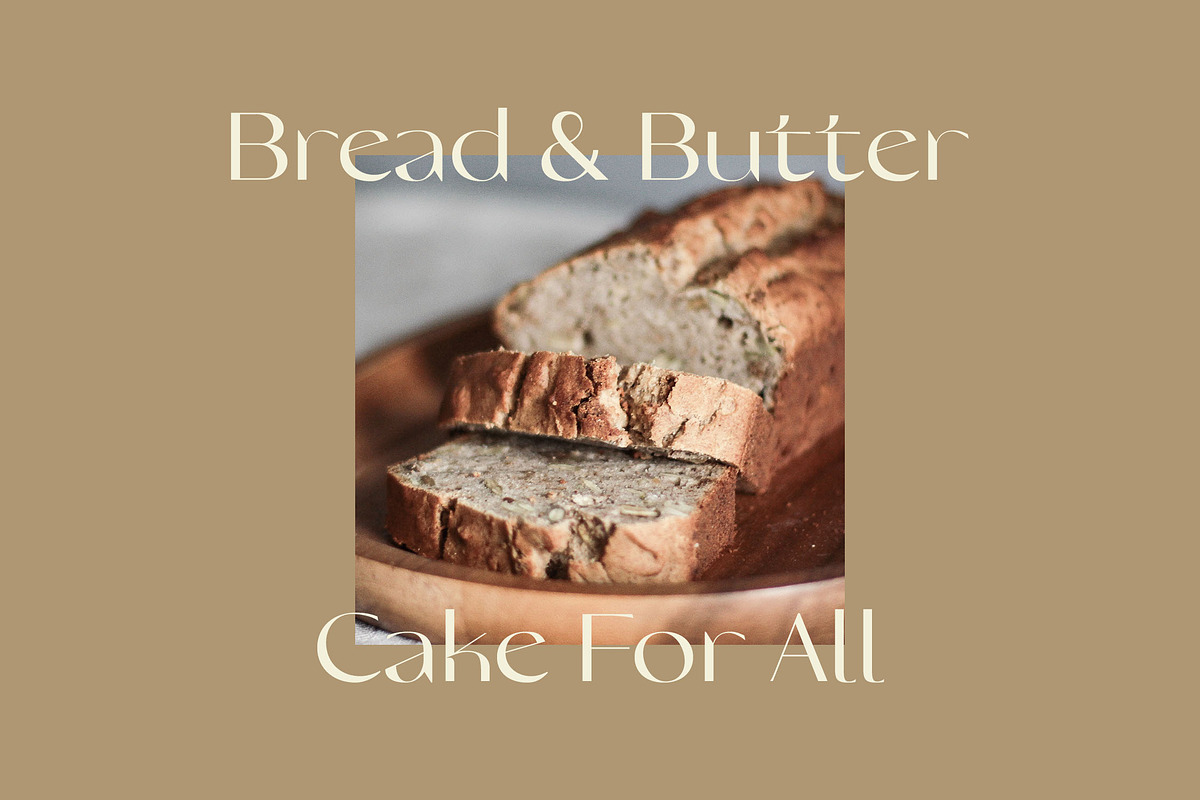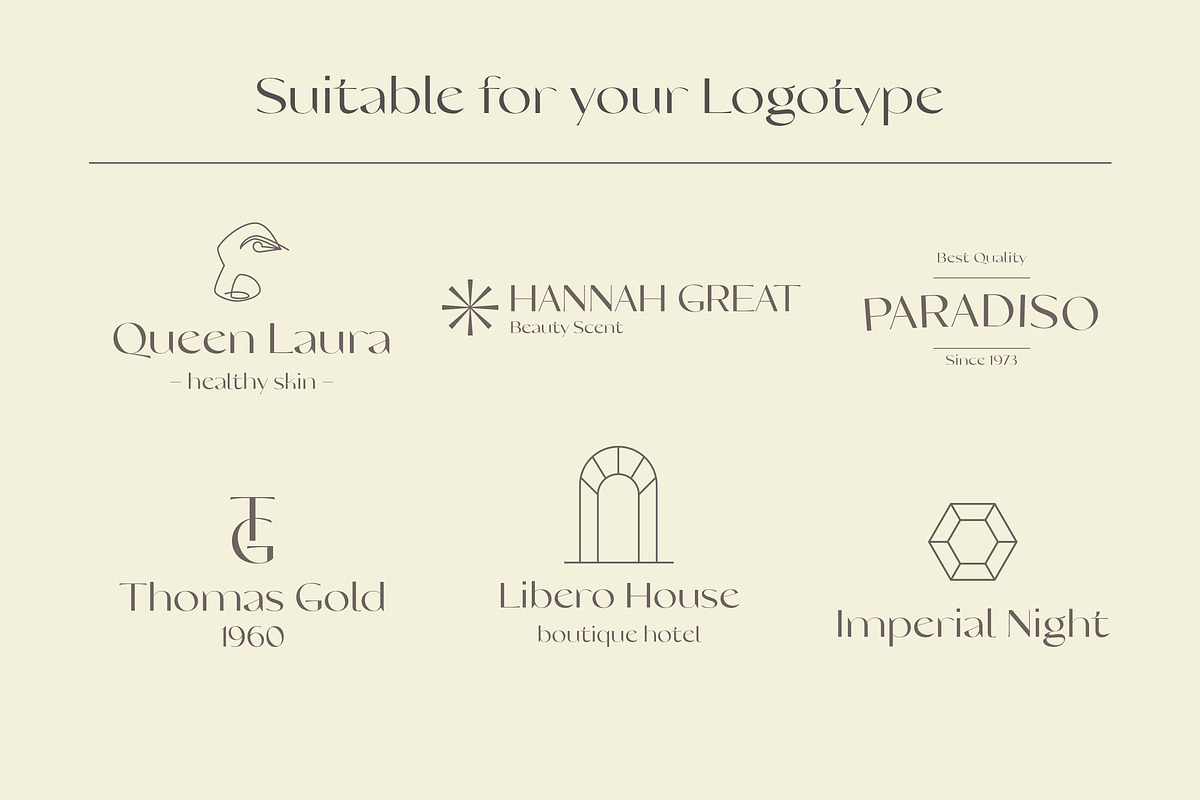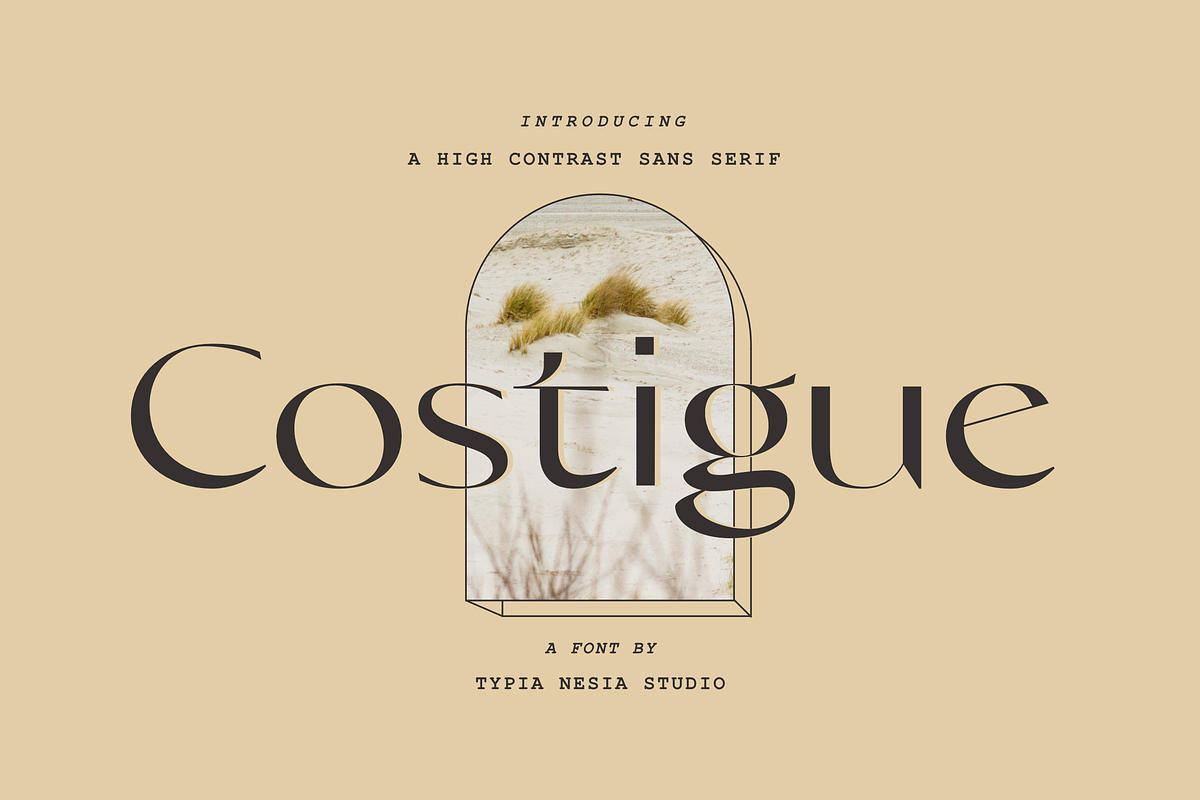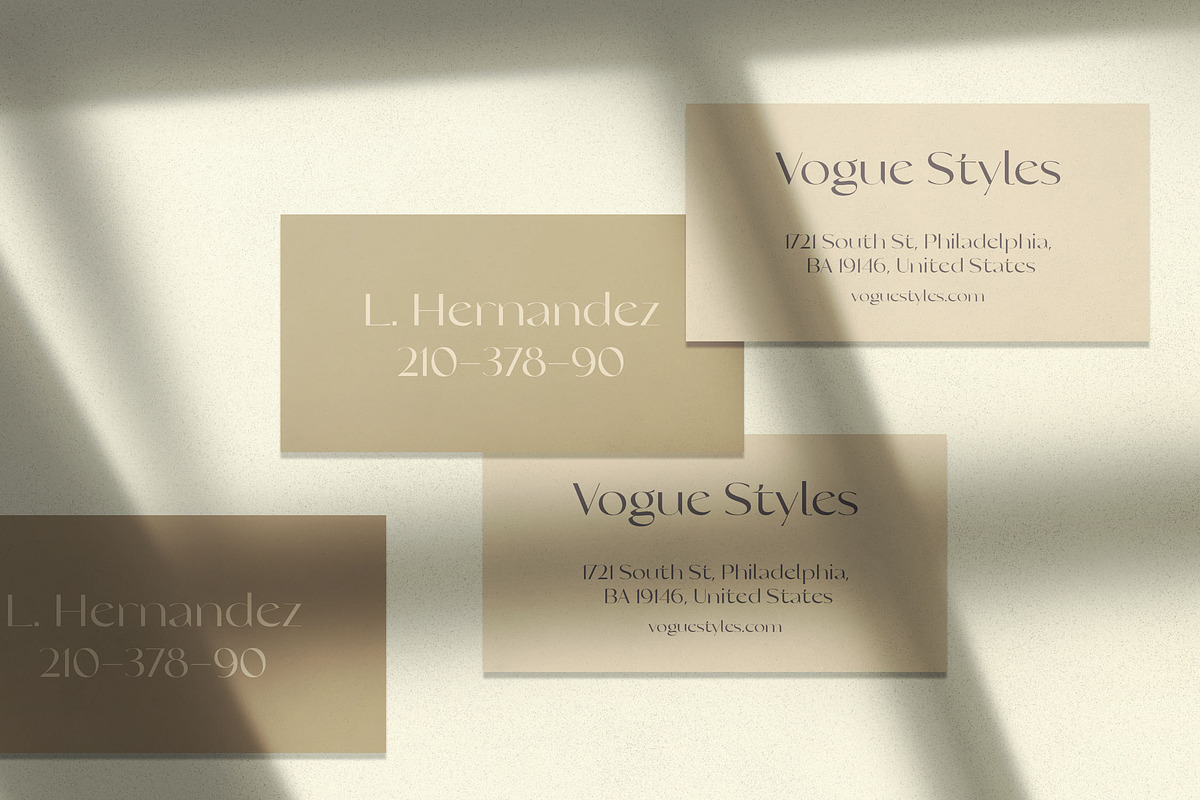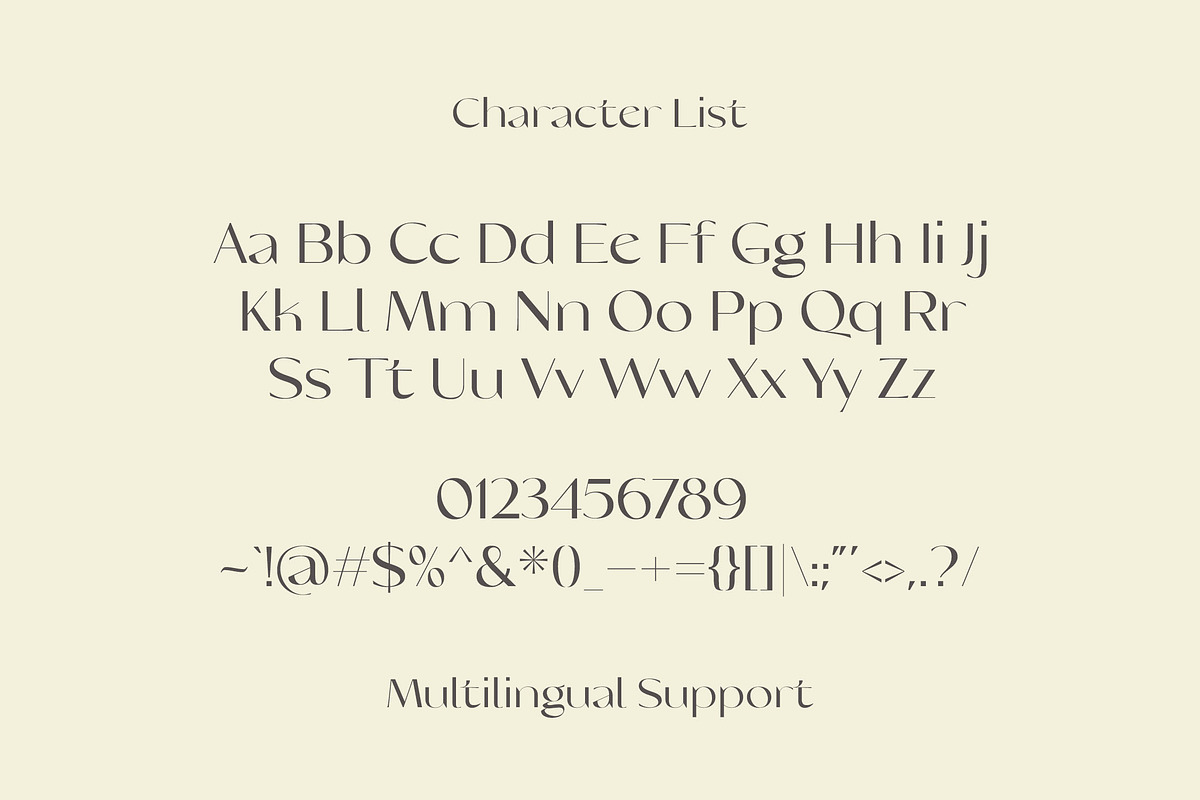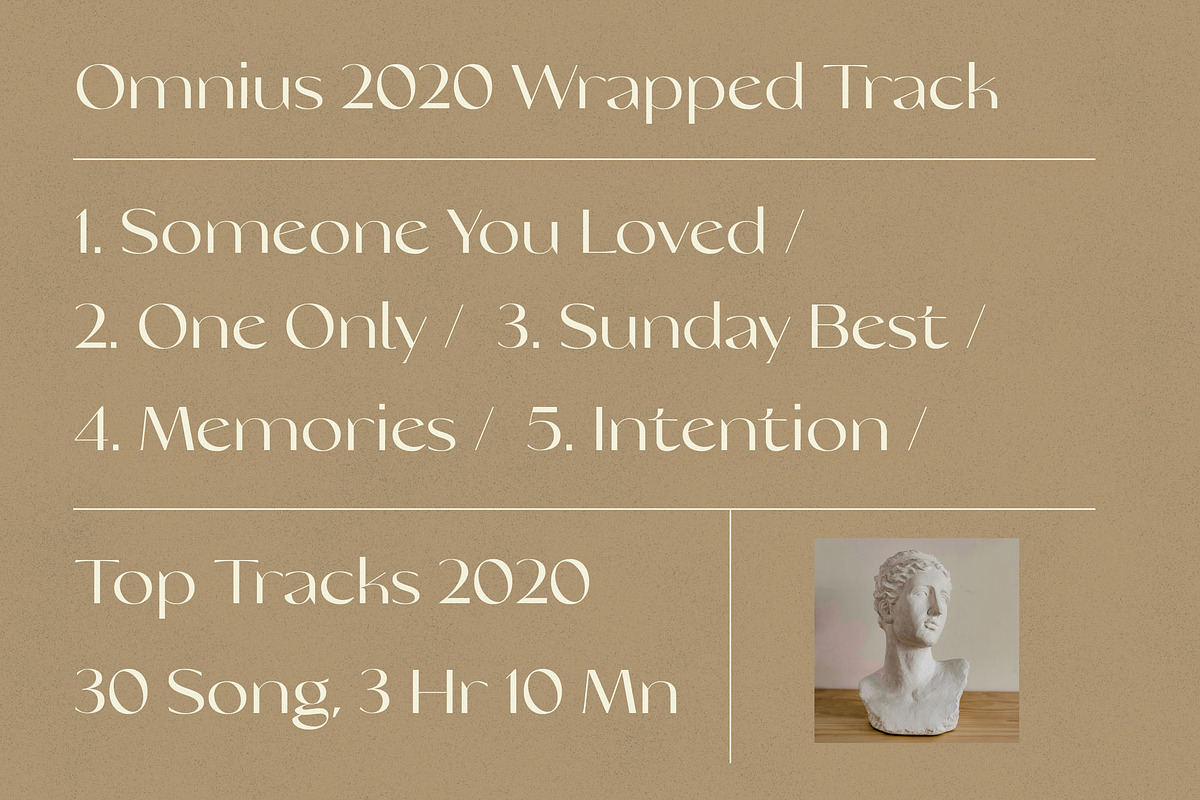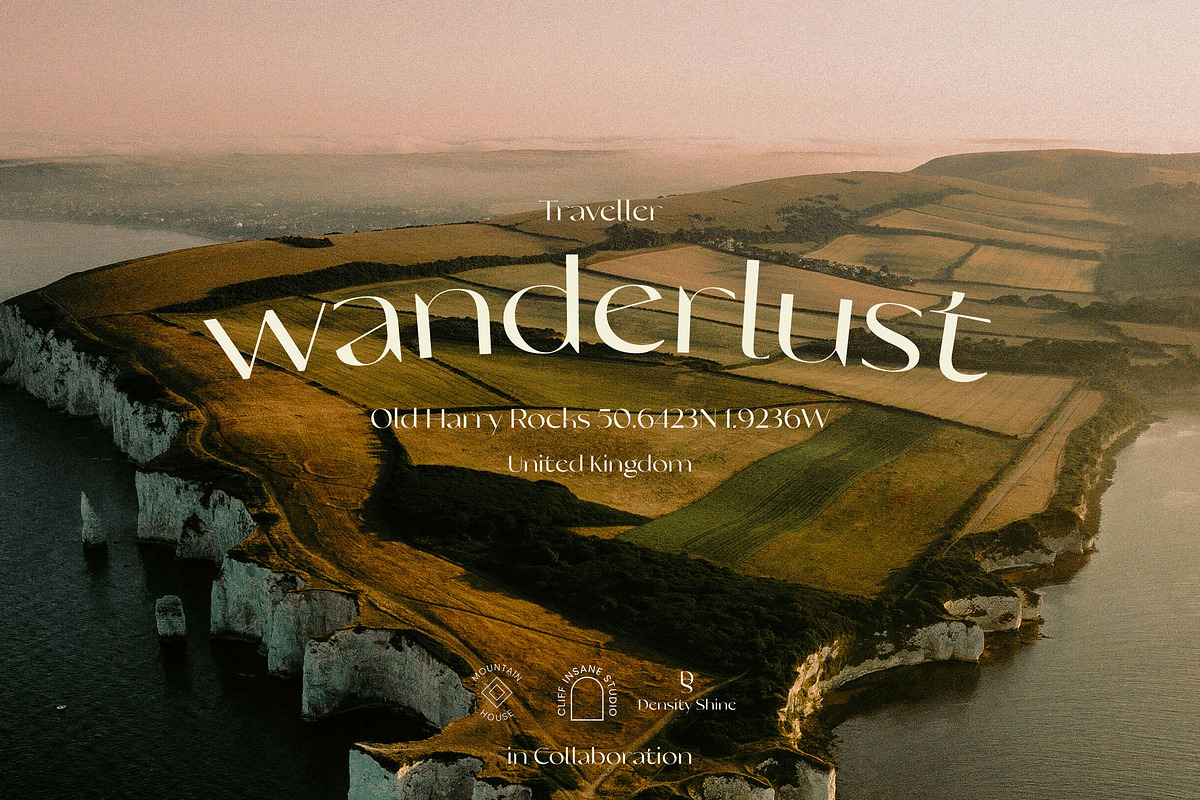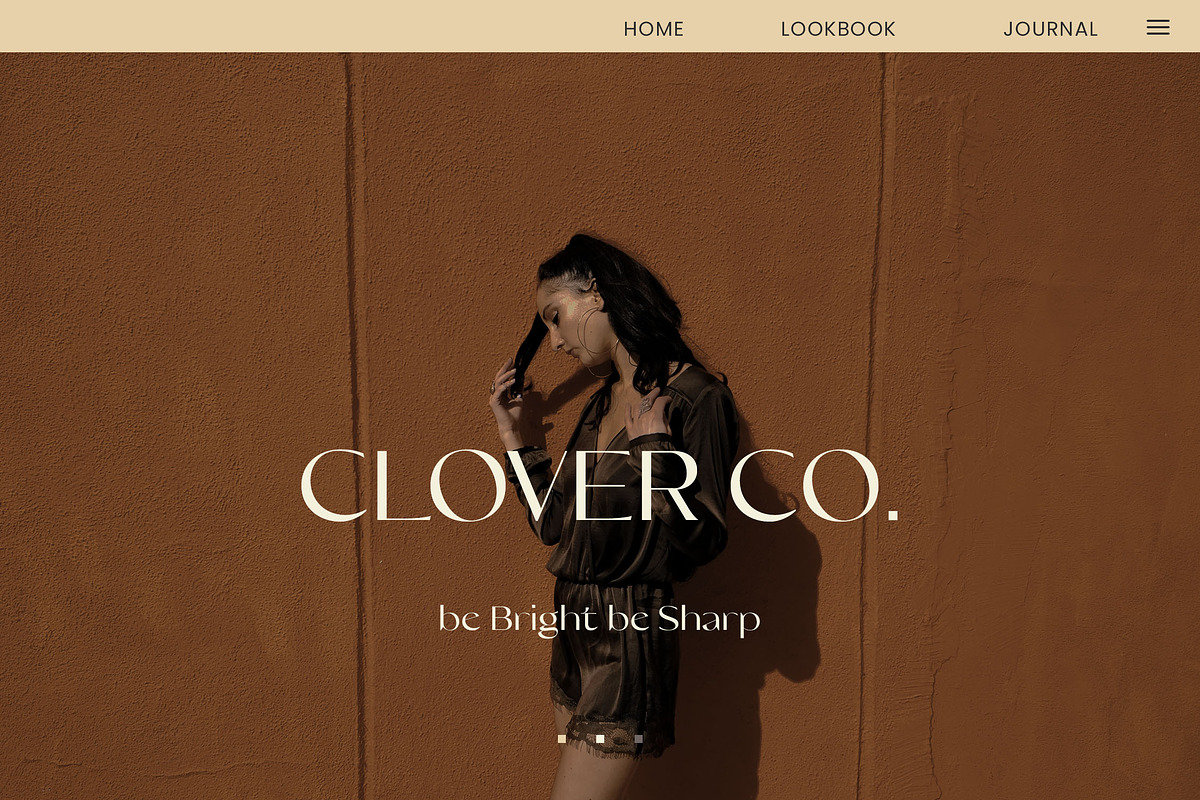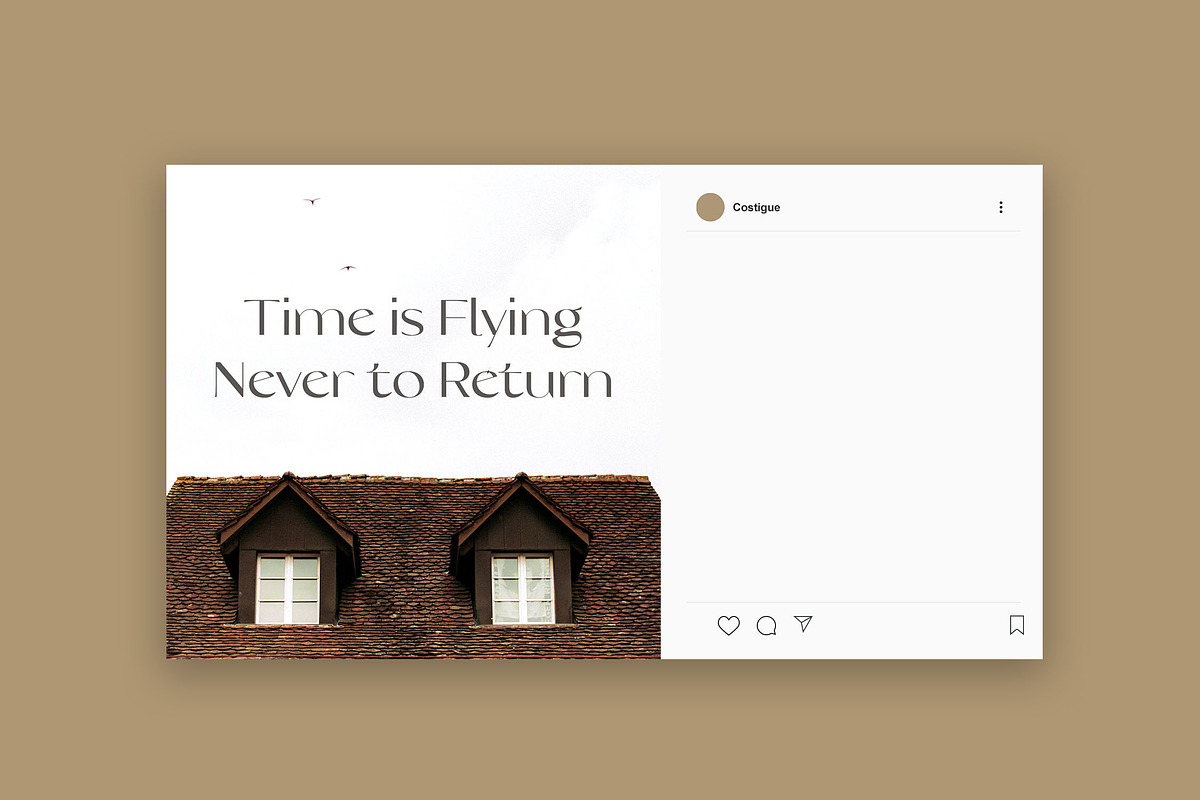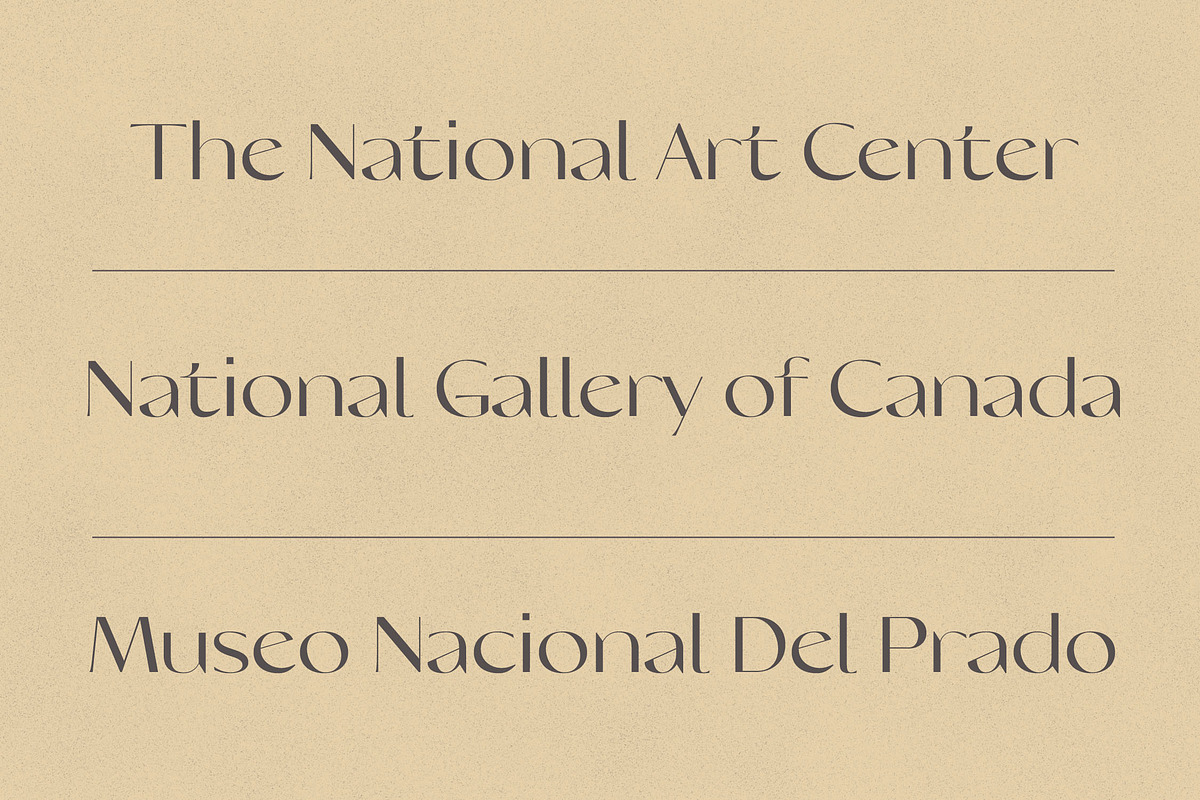
Costigue Luxury Sans
Costigue Modern Luxury Sans Serif Font
Costigue Sans font is perfect for your up coming projects. Such as luxury logo branding, editorial design, stationery design, Elegant Modern Fashion, Salon Beauty, feminine advertising design, blog / website design, card invitation, art quote, home decor, book/cover title, special events ( wedding, birthday, etc ), and any more.